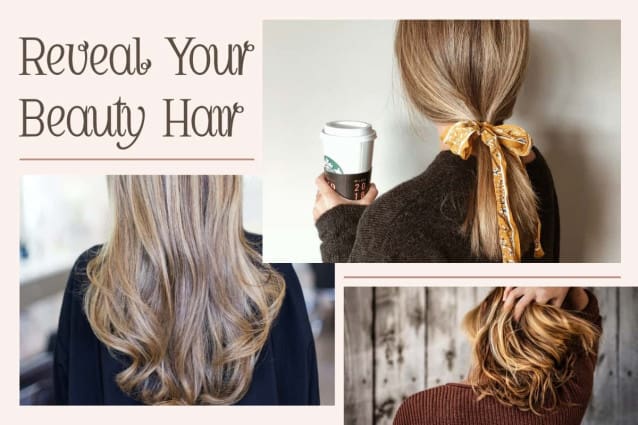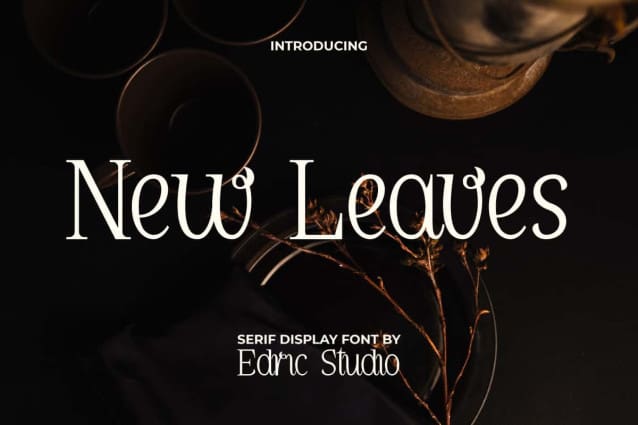
New Leaves Font
New Leaves Font is a unique and lovely serif typeface with the ornament of “leaves” on the letters. The font designed to enhance your projects with classic elegance and modern versatility. This serif display font exhibits unique characteristics of luxury. This will be perfect for app view, blogs, brand logo, brochure, cover, greeting card, headlines, logos, magazines, menu, packaging design, watermarks, website, wedding invitation, and others.
New Leaves Font covers the basic characters of Uppercase and Lowercase Letters, Numbers, Punctuation and Symbols. It also includes Alternate to increase the appeal of the font. This typeface combines sleek characteristics and beautifully crafted exotic curves with feminine aesthetic, flexible in whatever your business identity is. It’s so perfect for apparel, beauty clinic, content creator, cosmetic, cafes, event/celebration, fashion, florist, makeup artist, pastry chef, skincare, spa salon, etc.
New Leaves Font also supports multilingual characters which are ready to use either on Windows or Mac machines with a simple installation. Combine different characters for a bespoke, handcrafted feel. It’s tested to work well in the Adobe Apps (Illustrator, Adobe InDesign, Adobe Photoshop) even work on Microsoft Word. All of these characters are available through the glyph panel, moreover each letter has its own unicode (PUA) so you can access all the characters easily.